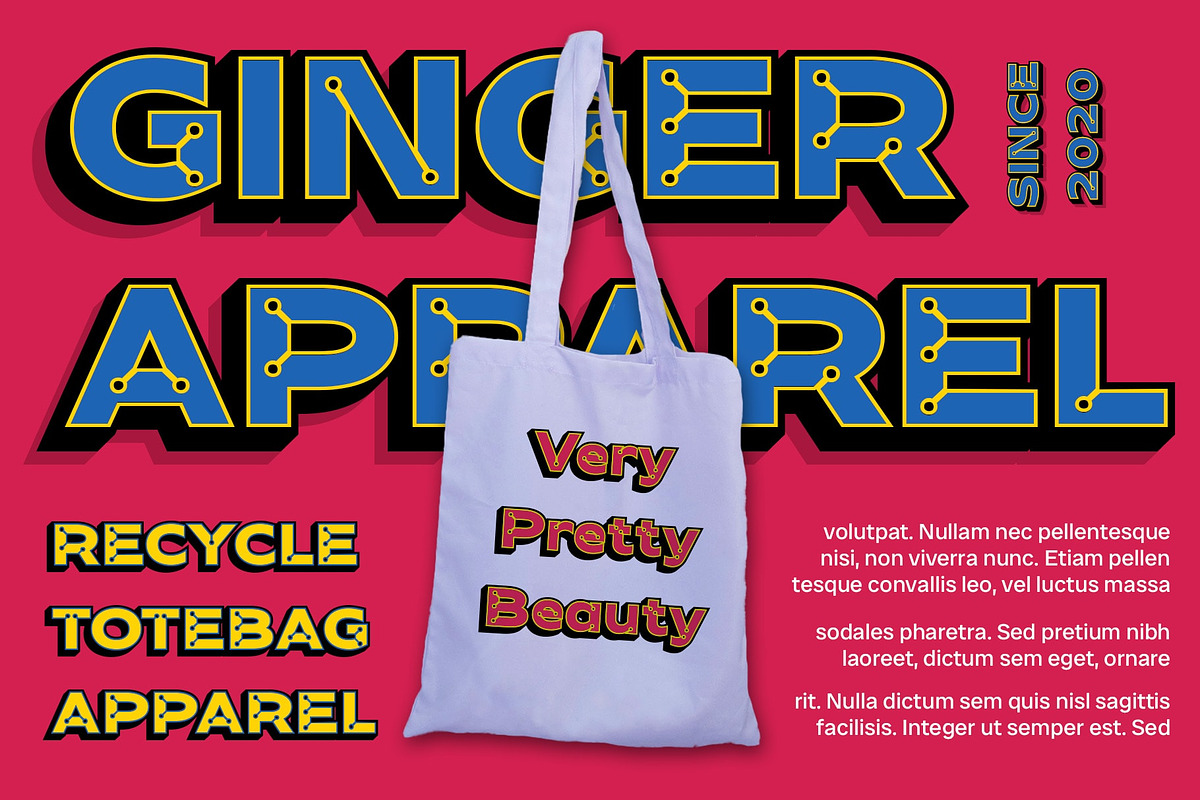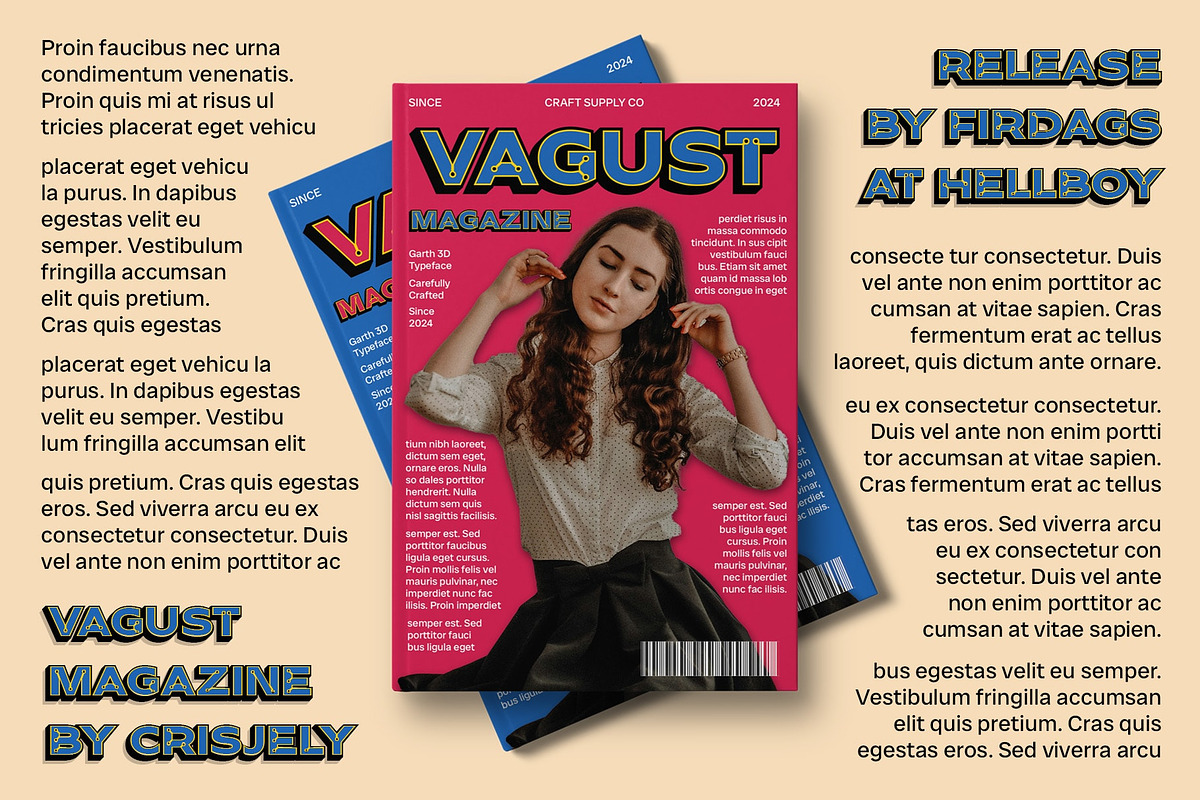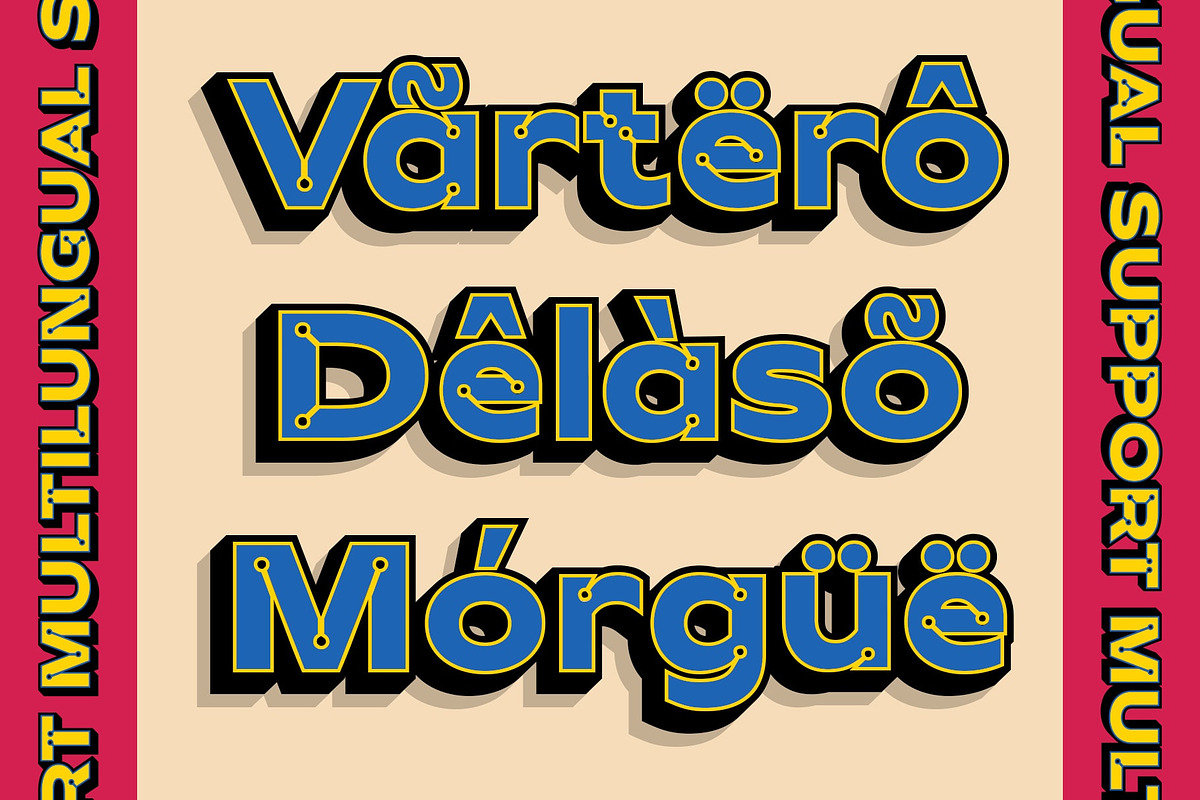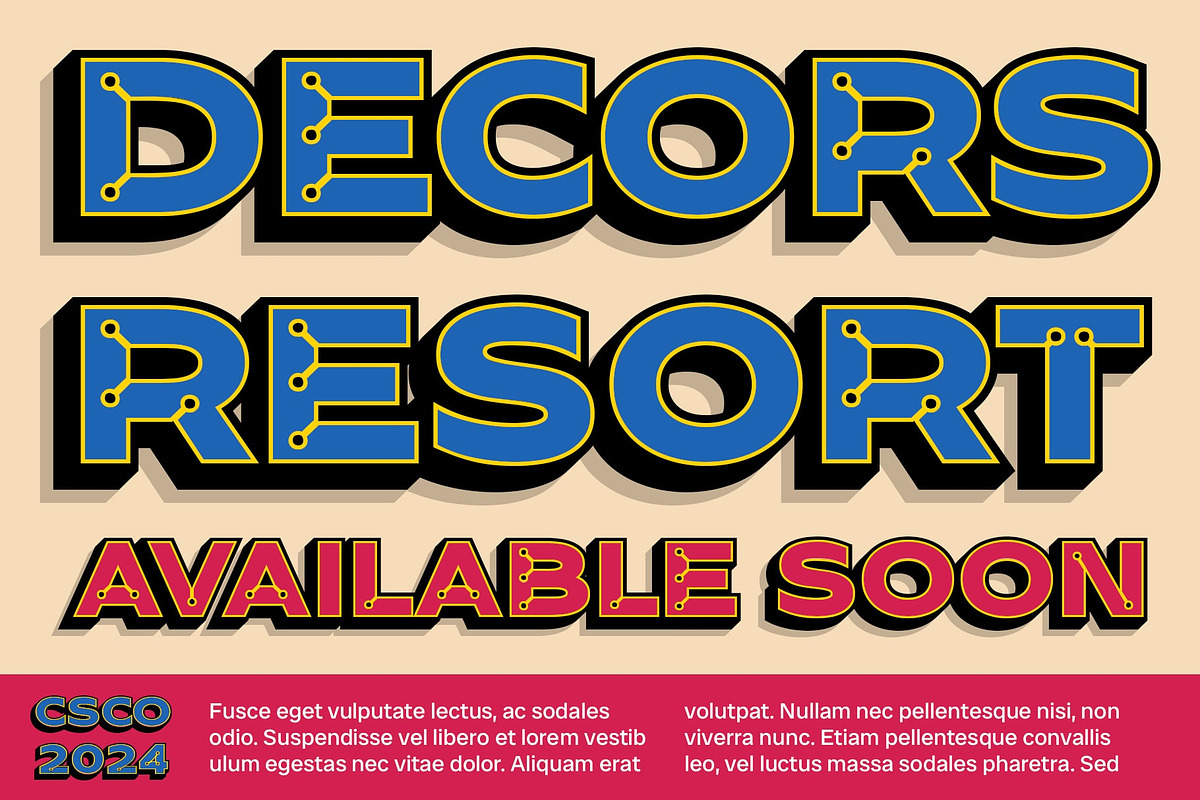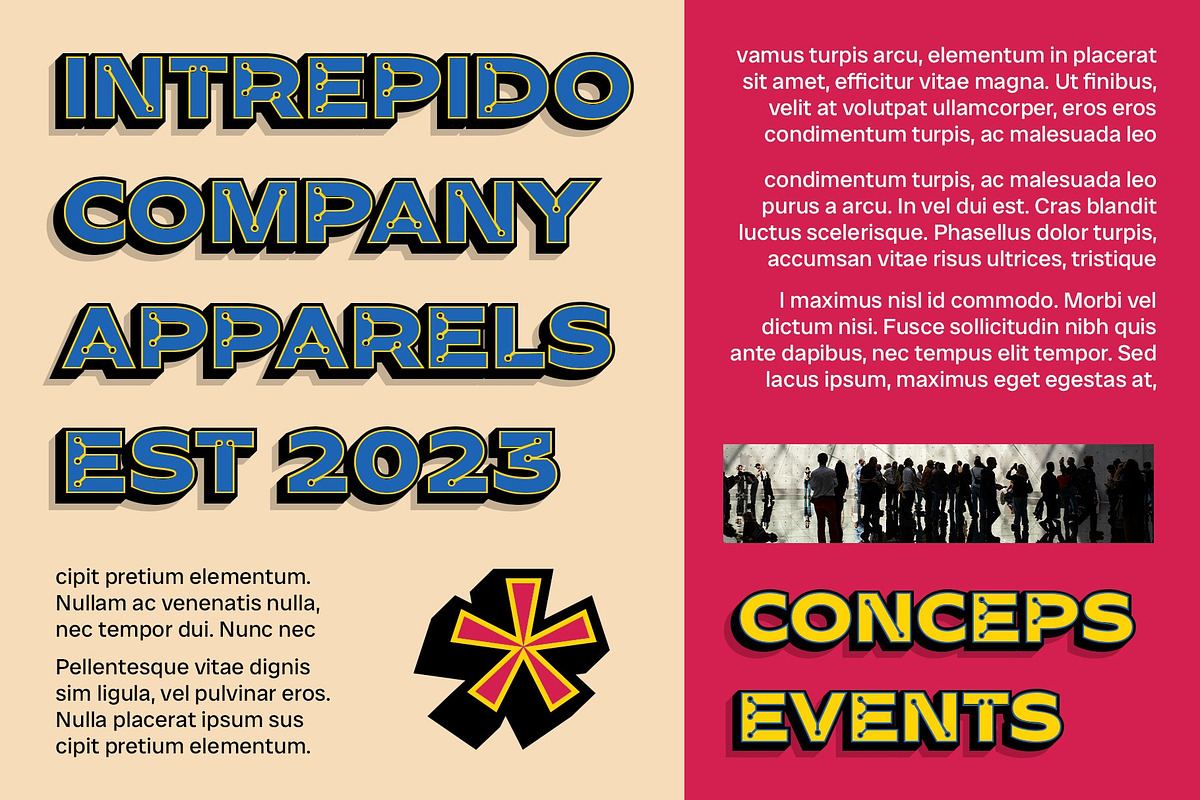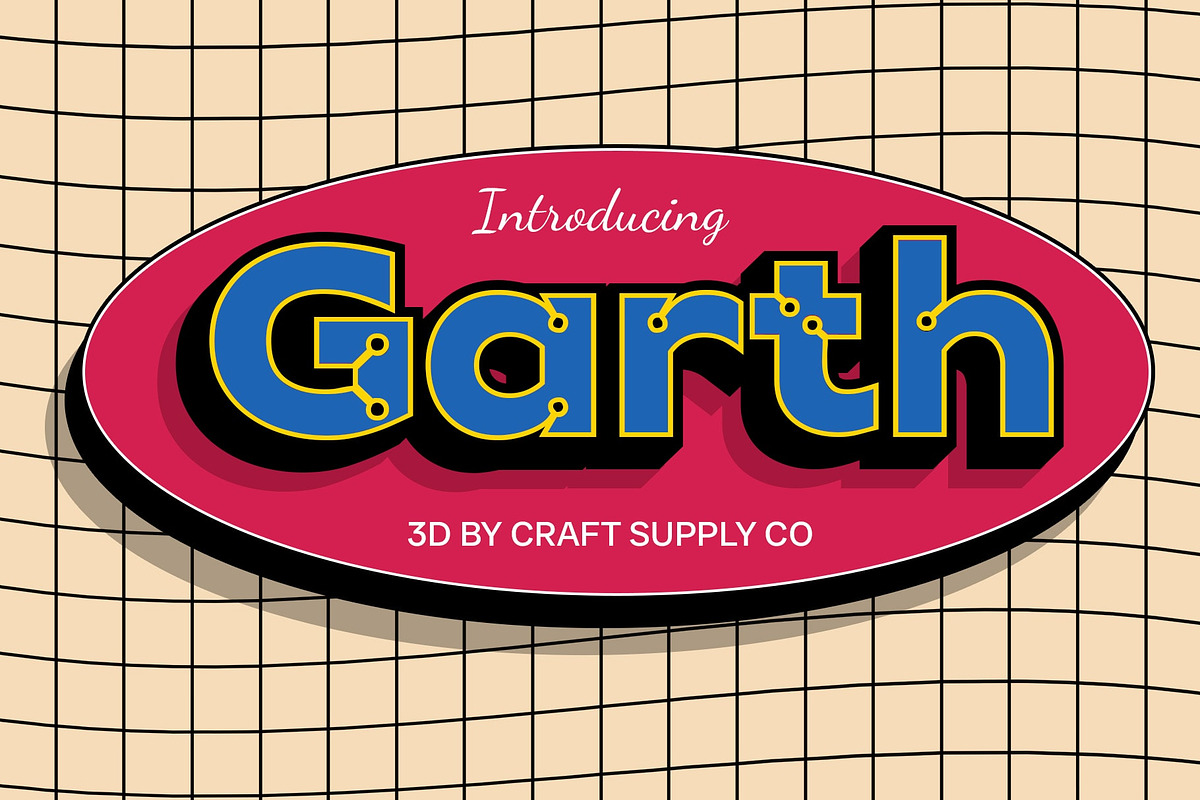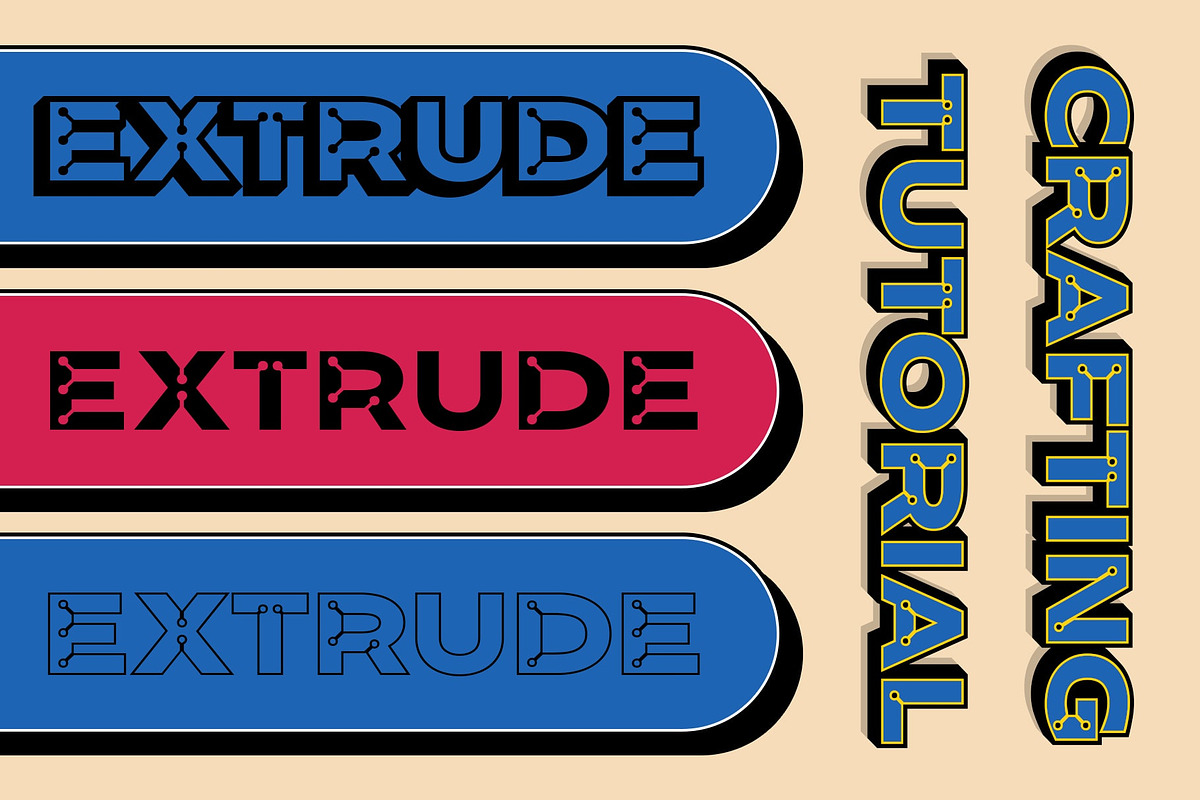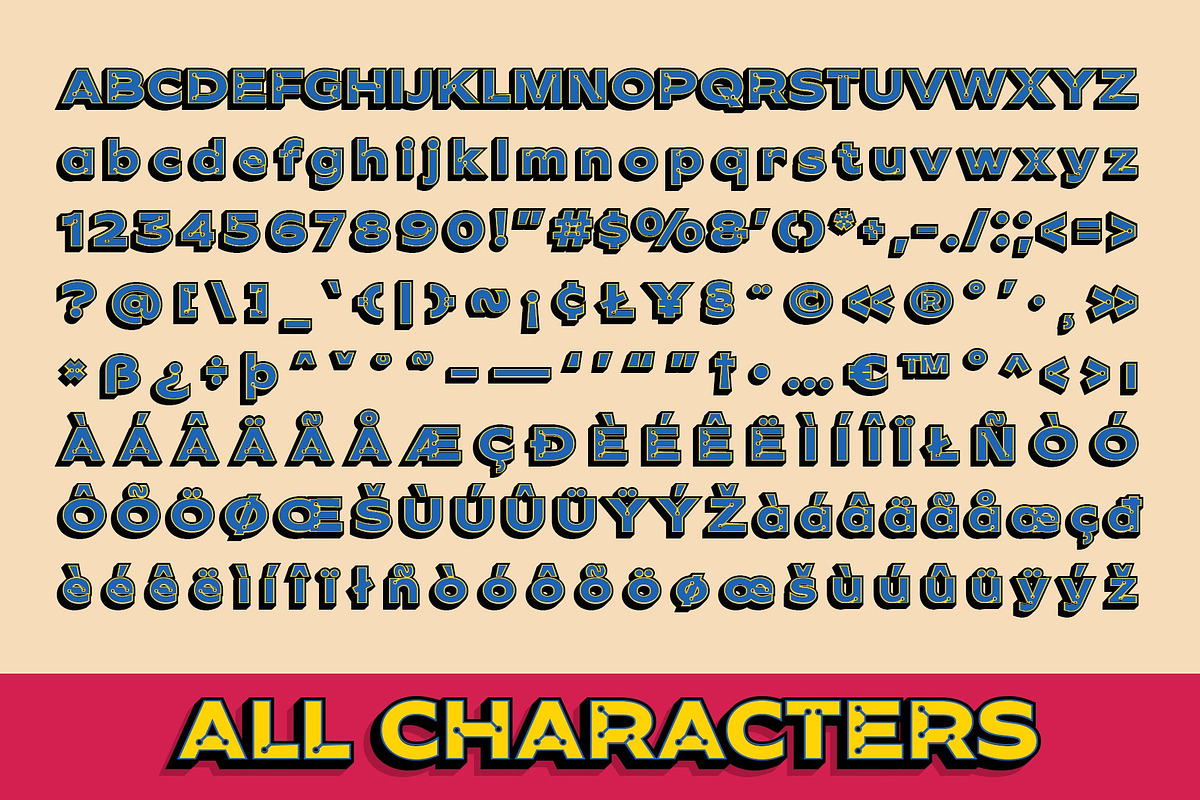
CS Garth 3D
CS Garth 3D: Dynamic 3D Font with Inktrap Details
Additive Dimensions and Fine Details CS Garth 3D is a sans-serif font featuring 3D and inktrap shapes. Ideal for designs seeking additional dimensions from the 3D effect and fine details from the inktrap, this font offers a blend of modernity and intricacy.
Ideal for Attention-Grabbing Designs Perfect for headlines, banners, and other display purposes, this font ensures your message is both seen and remembered. Its clean and modern sans-serif style, combined with a striking 3D effect and fine details from the inktrap, makes it a unique choice for various design projects.
Versatile and Striking Despite its intricate details, CS Garth 3D remains versatile and striking. Its combination of styles makes it suitable for a wide range of projects, from branding to digital designs, where a font with a strong visual impact is essential for making a statement.
Perfect for Adding Depth and Detail CS Garth 3D is ideal for projects requiring a font with depth and detail. Whether you’re designing a poster, logo, or website, this font will undoubtedly add a distinct and memorable element to your designs.
- CS Garth Regular
- CS Garth Outline
- CS Garth Extrude Right
- CS Garth Extrude Left